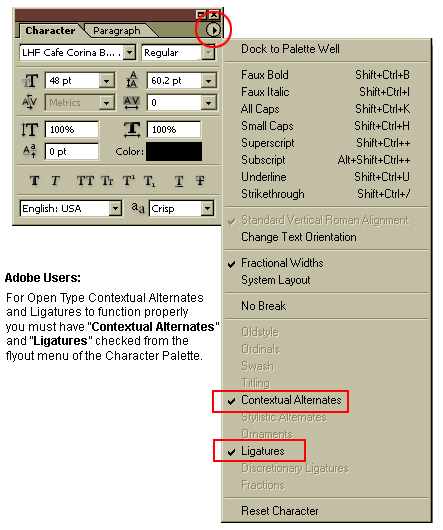
Notes for using LHF Café Corina™ Use LHF Café Corina™
as you would a script font. Use caps at the beginning of words only. Typing
an entire word in all caps will render poor results. If you are using LHF Café Corina™ in an application that supports Open Type
contextual alternates and ligatures, there are some interesting combinations
that will automatically generate when typing the following: Ea, Za, Le, Ch, ea, za. In some cases you will discover some
combinations of letters that simply don’t work together well. Future plans
will include assigning more custom ligatures for these troublesome